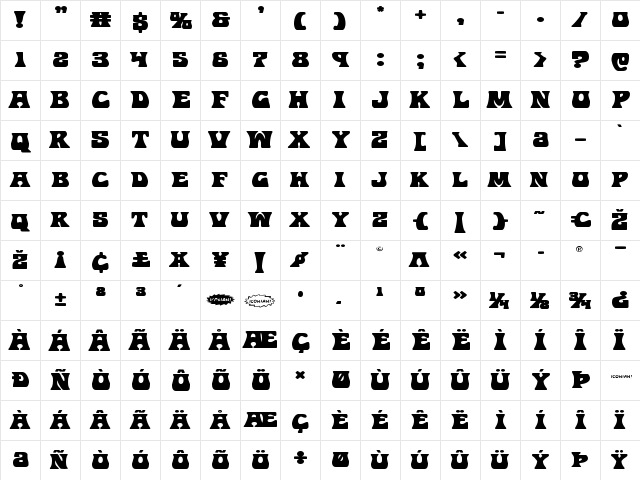
Hip Pocket Expanded Expanded
Design Context for Hip Pocket Expanded Typeface
Hip Pocket Expanded is a composed and adaptable typeface that performs quietly and consistently across a wide range of design contexts.